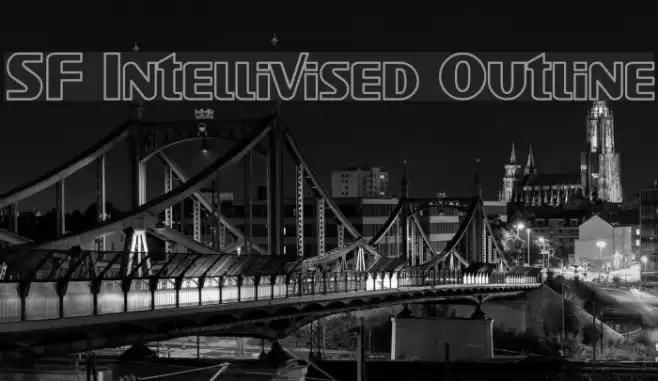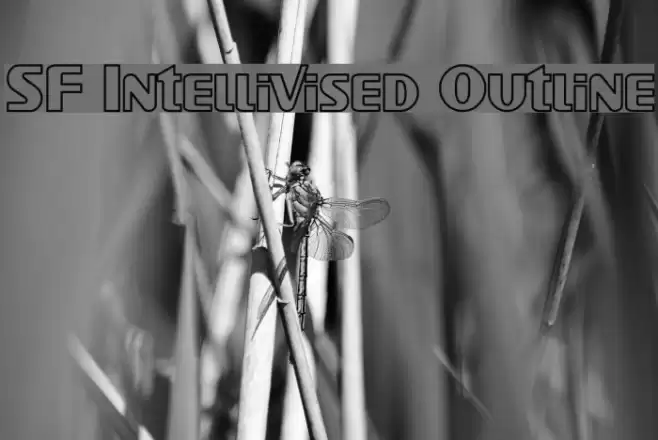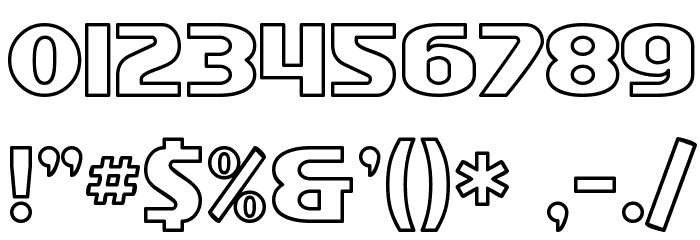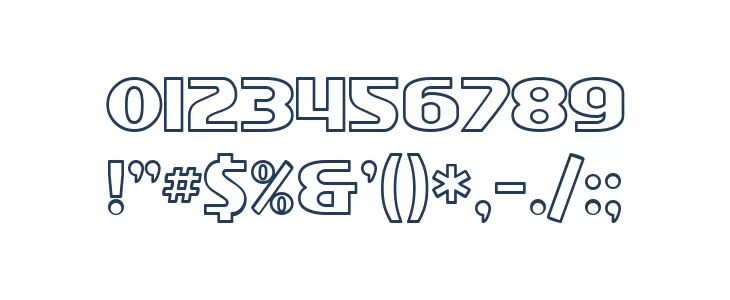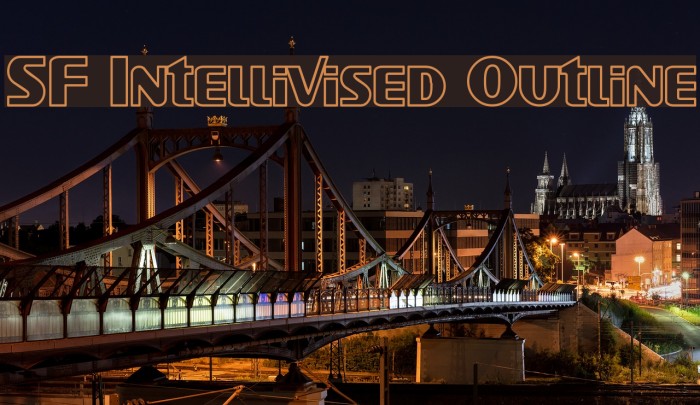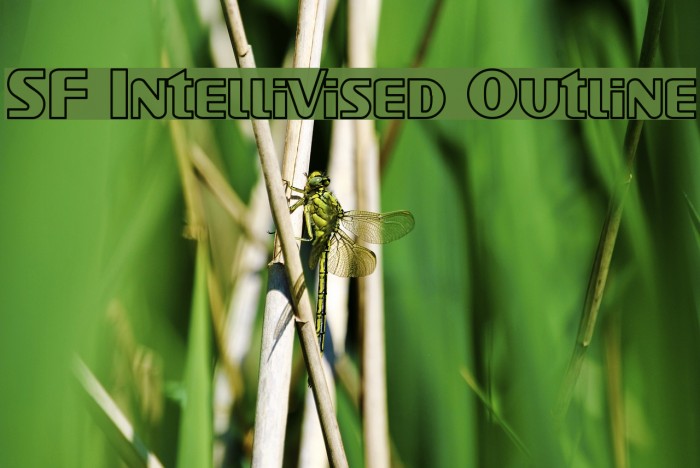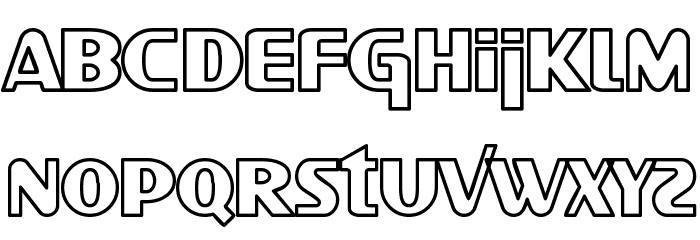
SF Intellivised Outline Font
SF Intellivised Outline Description
This font features a bold, outlined style with a modern and geometric appearance. The characters are uppercase and lowercase, with numerals and a variety of special symbols. The outlines are consistent in thickness, giving the font a structured and uniform look. The design is clean and minimalistic, making it suitable for projects that require a contemporary and eye-catching typeface. The spacing between characters is normal, ensuring readability while maintaining a distinct visual impact.
A bold, outlined, modern geometric font with consistent stroke thickness from Modern fonts.
- Proposed Projects: Ideal for headlines, posters, branding, and digital media where a strong visual presence is needed.